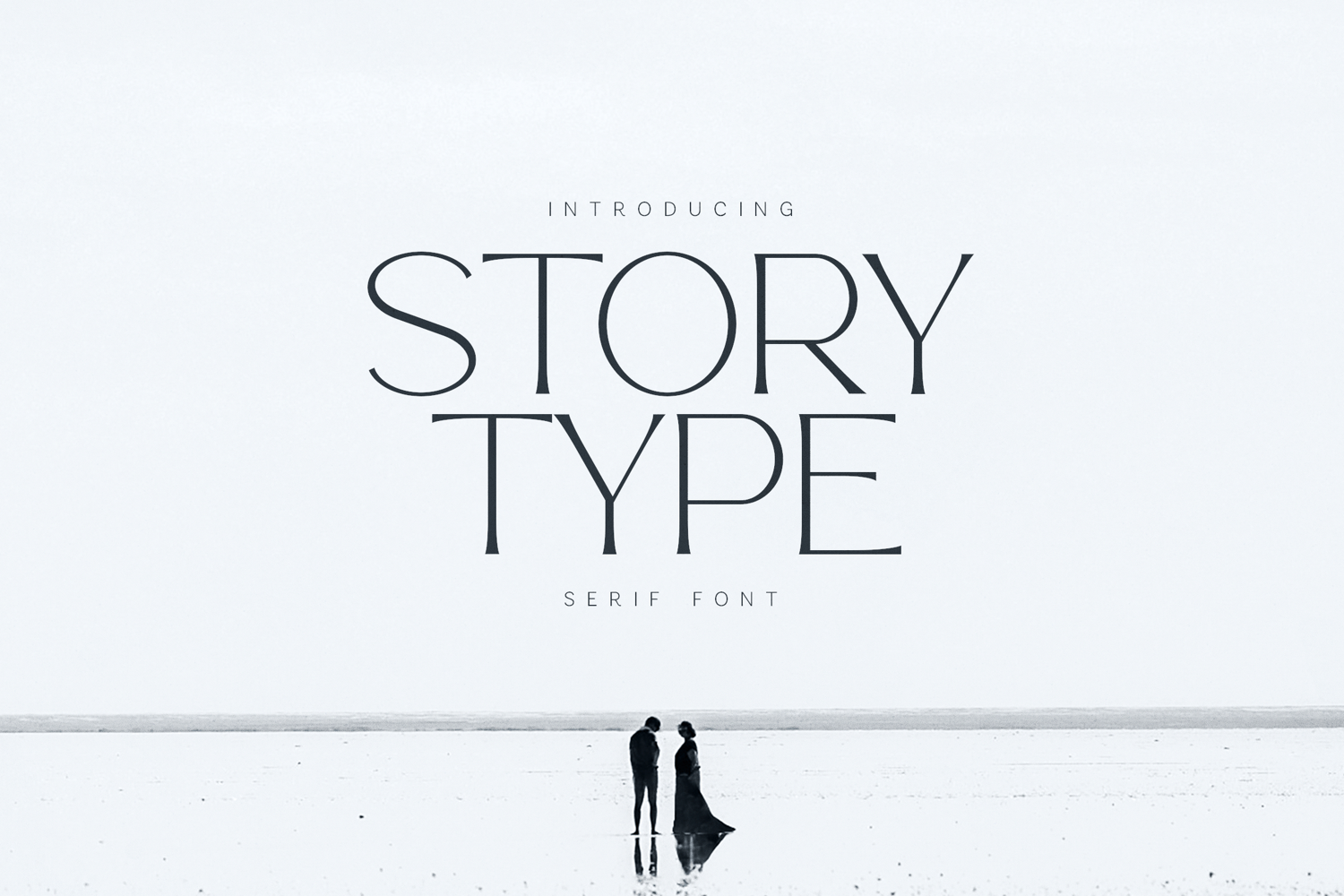
Story Type Elegant Modern Serif Font
Story Type is an elegant modern serif font designed for refined typography and timeless visual storytelling. Featuring slender strokes, balanced proportions, and graceful letterforms, Story Type is ideal for editorial design, book covers, branding, fashion projects, quotes, invitations, and sophisticated creative layouts.
With its calm, airy presence and classic serif foundation, Story Type brings clarity and emotion to both headlines and body text. The font works beautifully in minimal compositions where elegance, readability, and mood are essential.
Story Type includes a complete character set with multilingual support, numerals, and punctuation, making it suitable for both print and digital applications.
Story Type is crafted for designers who want subtle elegance, narrative depth, and timeless typography.